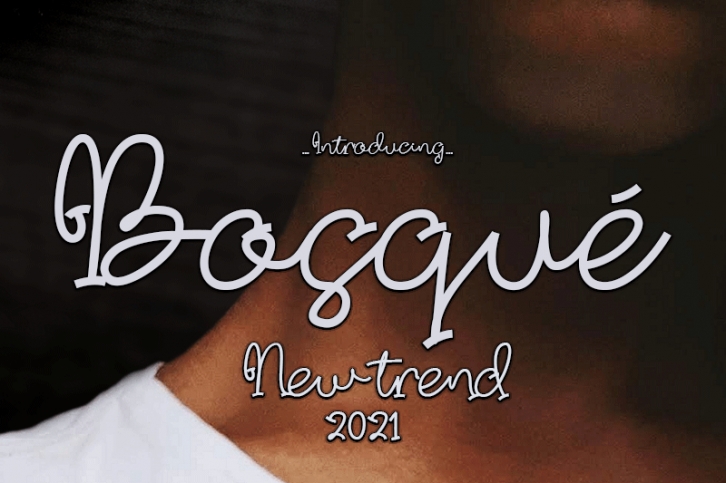
Bosqué font is monoline style that is beautiful to look at, simple and attractive.
The Bosqué font is perfect for clothing, branding, displays, social media posts, advertising, product packaging, product design, labels and any project you're working on.